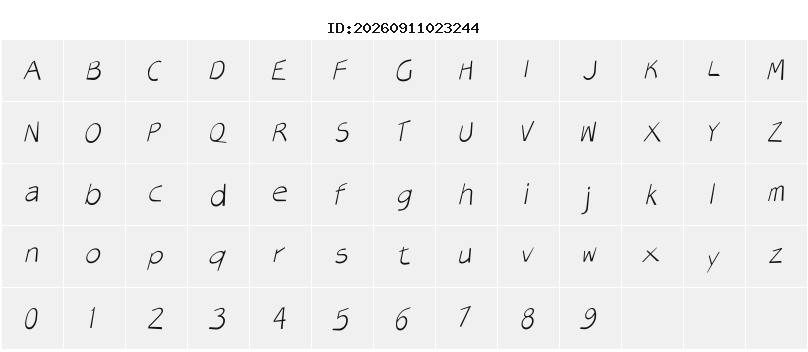
• Font Name: VeryOblique
• Font ID: VeryOblique
• Full Font Name: VeryOblique
• PostScript Name: VeryOblique
About VeryOblique.ttf
VeryOblique.ttf is a modern, elegant sans-serif font designed for ultimate readability and visual harmony. Perfect for branding, headlines, web design, and print materials.